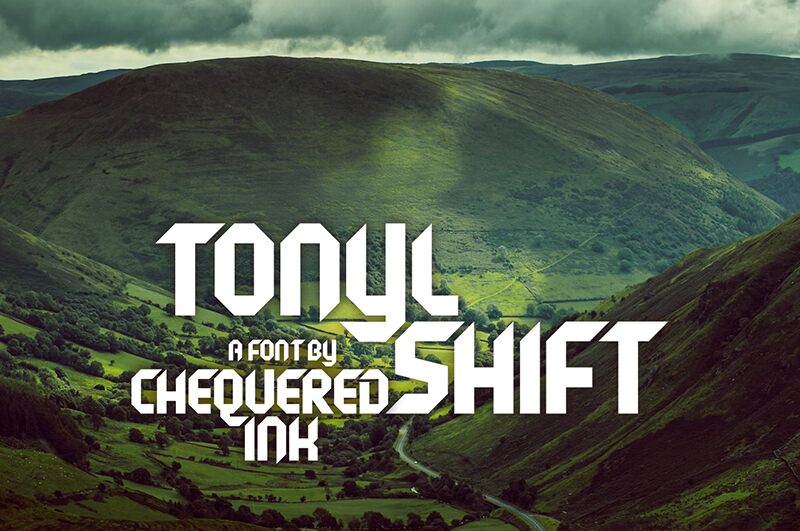
Tonyl Shift
You need to be quick if you want to get your hand on this font. Tonyl Shift created by Chequered Ink is a strong, bold, and sharp sans serif display font that can be downloaded for free but for personal use only. Tonyl Shift, as you can see from the sample, will give your creations a technical look with its linear and sharp lines.
It can be used for business cards or flyers for tech products and services (such as VR apps and artificial intelligence), branding, posters, flyers, ads, apparel, and even book titles.